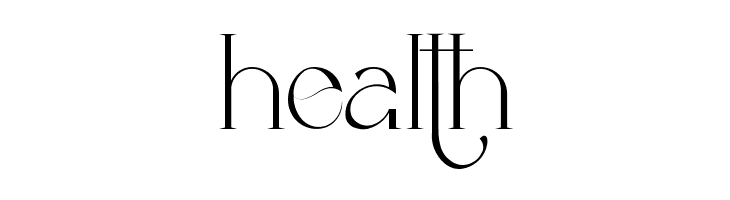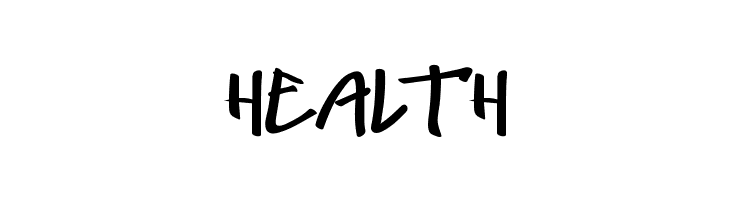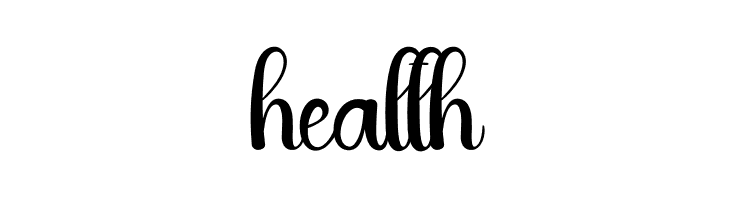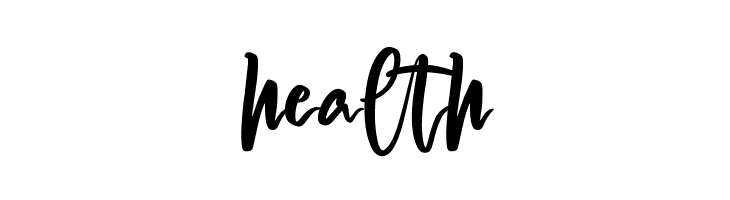
A modern, elegant font with high contrast and sharp serifs.
A bold, geometric font with modern and artistic letterforms.
A modern, elegant font with tall uppercase and cursive lowercase letters.
A lively, handwritten script font with bold strokes and playful curves.
A bold, playful handwritten font with rounded, irregular shapes.
Bold, playful handwritten script font.
A playful handwritten font with elongated, slanted letters and a light, airy feel.
A modern, cursive font with bold, expressive strokes and medium contrast.